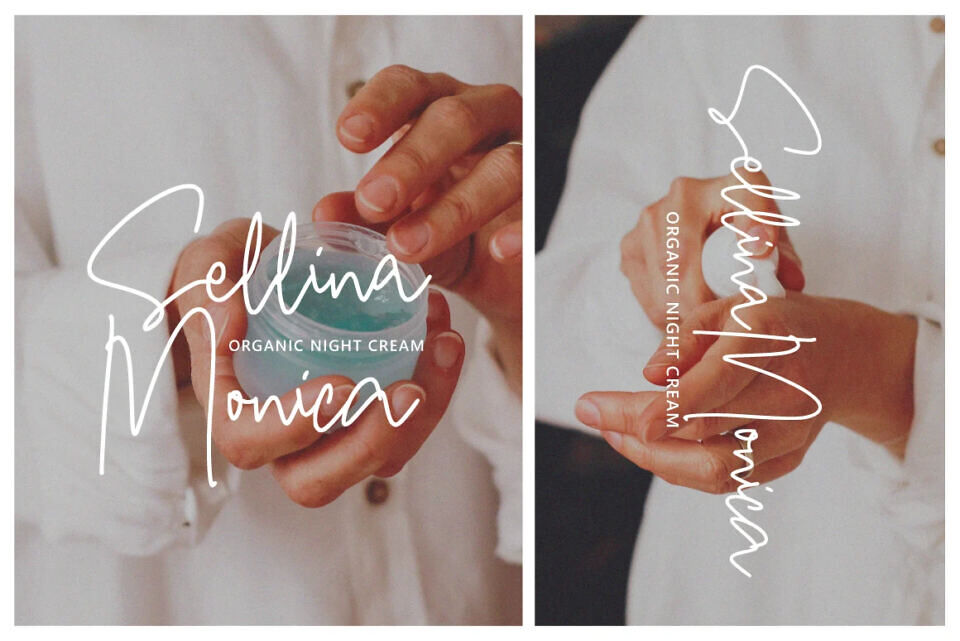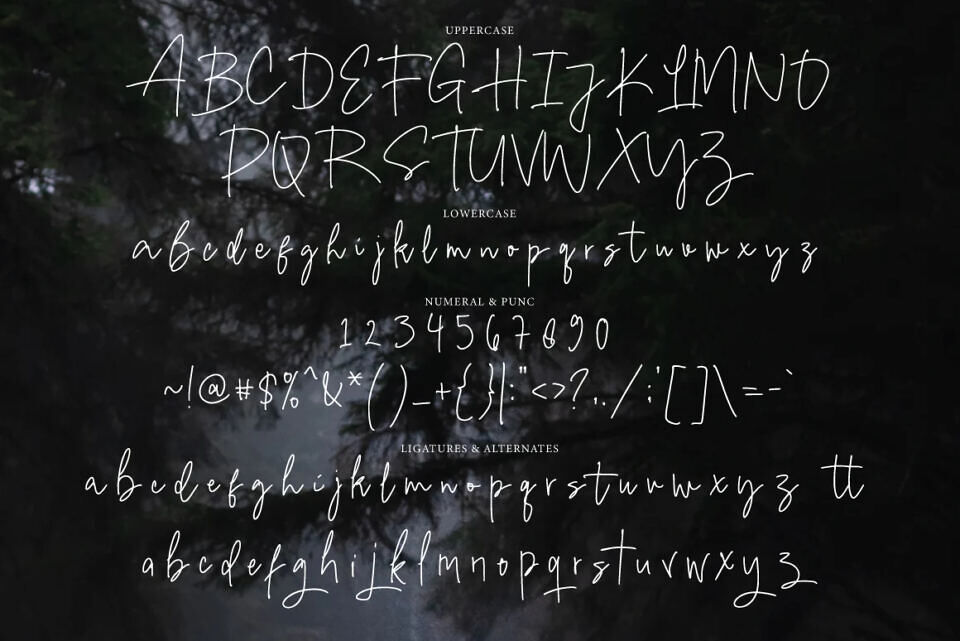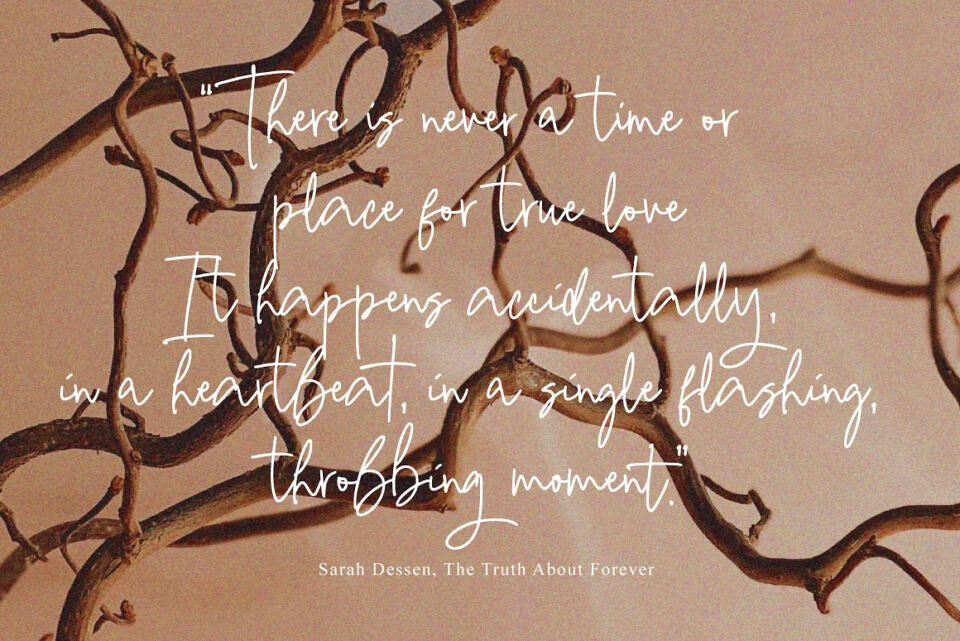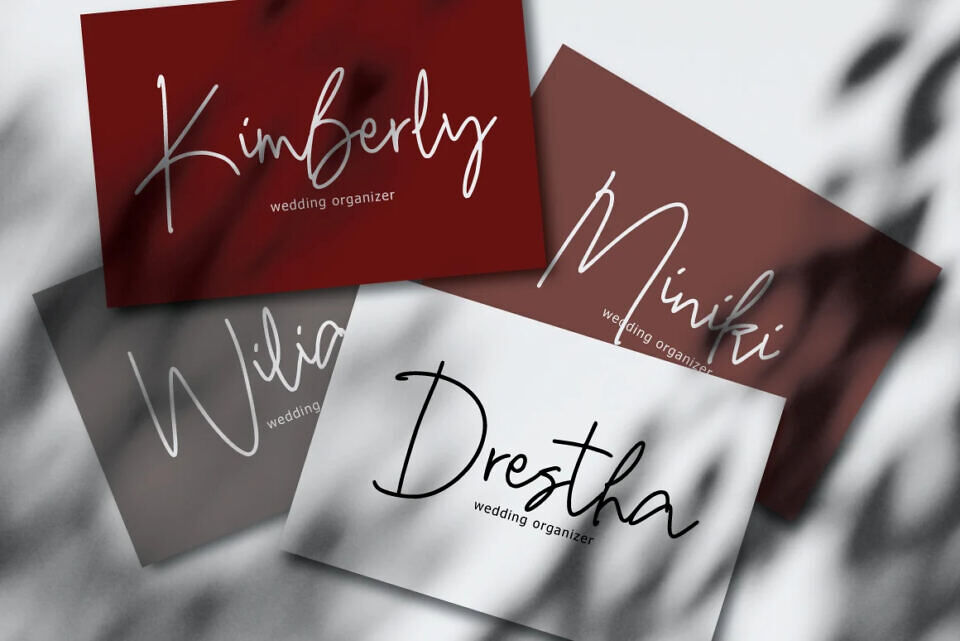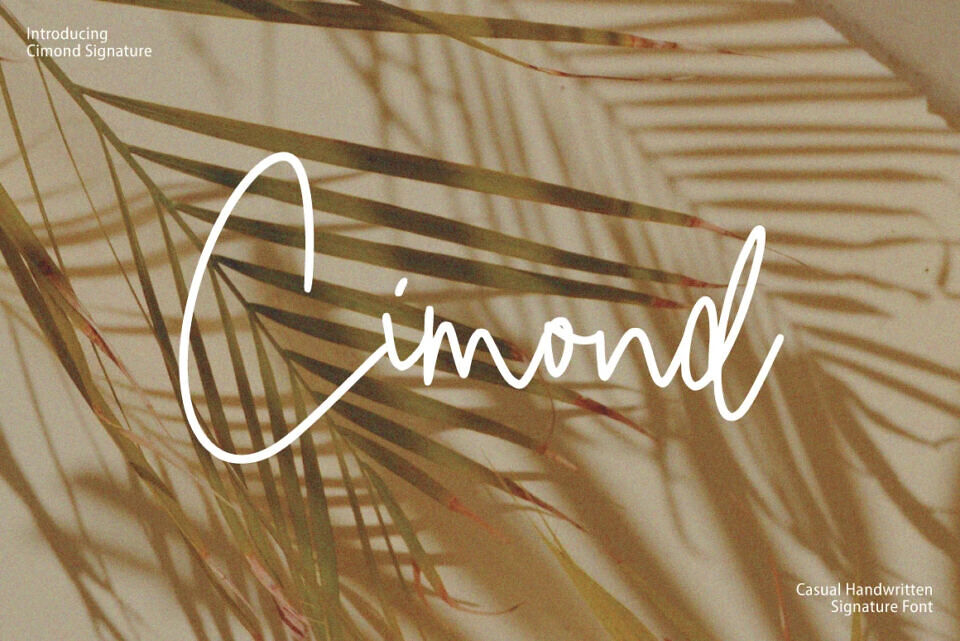
Cimond Signature Font
Cimond Signature with a handmade Signature style, decorative characters and a dancing baseline! So beautiful on invitation like greeting cards, branding materials, business cards, quotes, posters, and more!
Cimond Signature come with 200+ glyphs. The alternative characters were divided into several Open Type features such as Swash, Stylistic Sets, Stylistic Alternates, and Ligature.